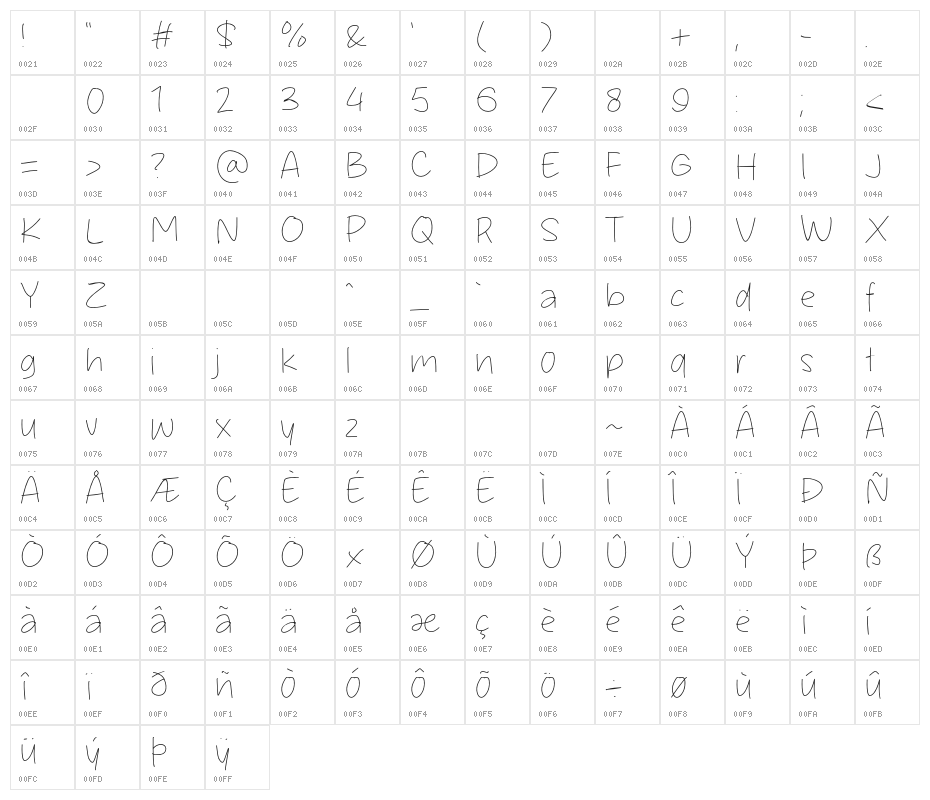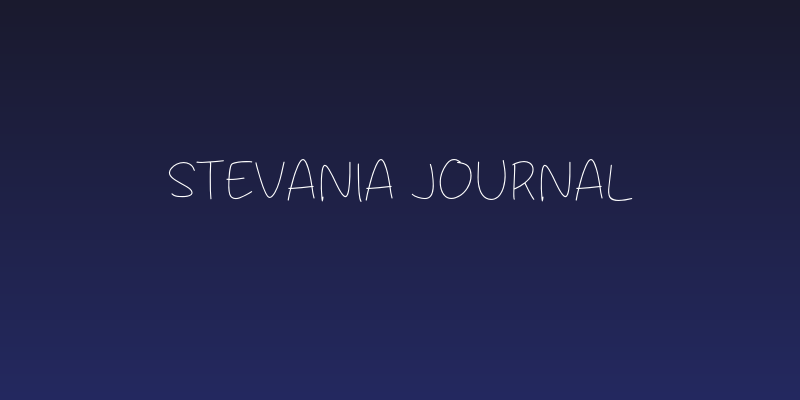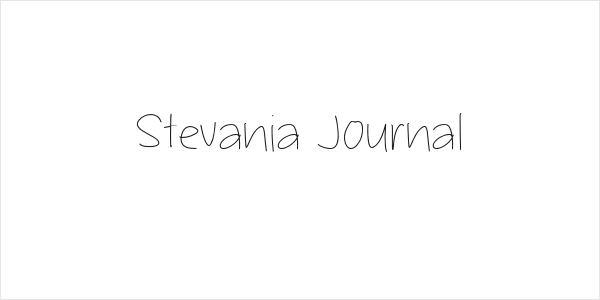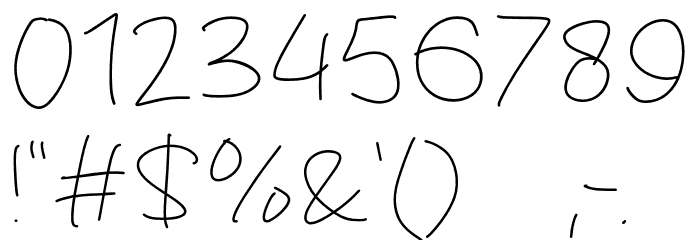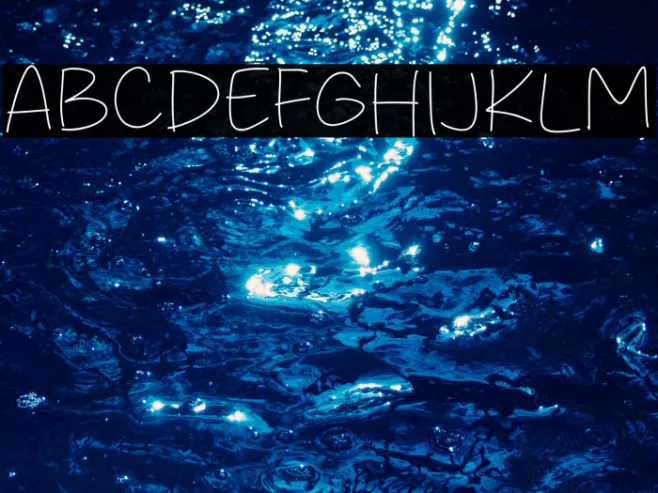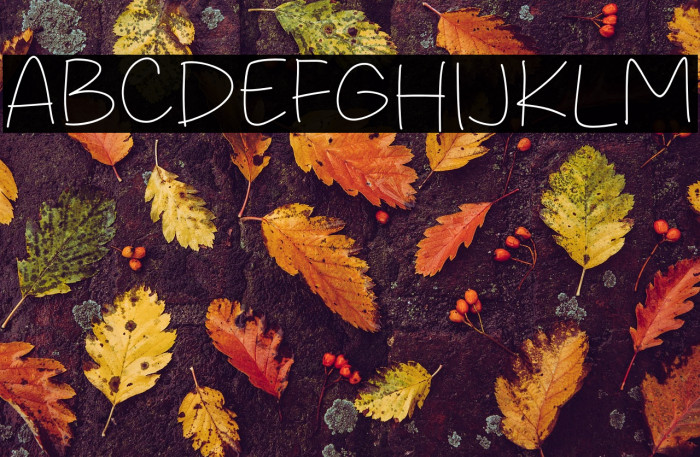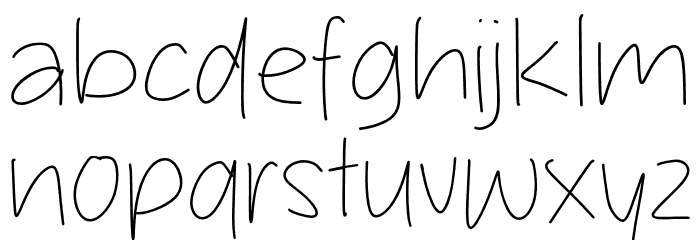
Stevania Journal Font
Stevania Journal Description
This font features a handwritten style with a casual and informal appearance. The characters are thin and slightly irregular, giving it a personal and approachable feel. The strokes are consistent in width, with a slight variation that adds to the handwritten effect. The uppercase and lowercase letters are well-proportioned, and the numerals are clear and easy to read. Special characters are included, maintaining the same style as the alphabet. This font is suitable for projects that require a personal touch, such as journals, notes, or creative designs.
| Use Case | Headlines, Creative projects, Personal notes |
| Proposed Projects | Ideal for personal journals, creative notes, invitations, and informal branding. |